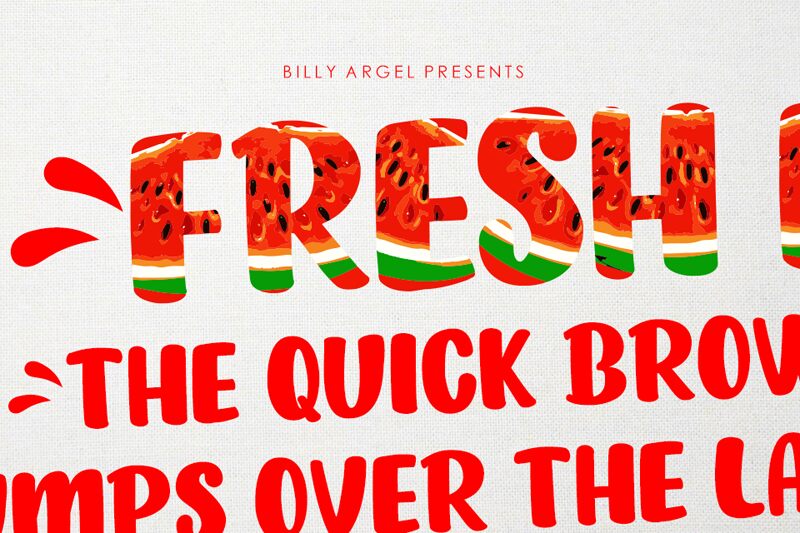
Looking for a font that's as juicy and vibrant as your creative projects? Look no further than FRESH FRUIT, the extra-bold display typeface from designer Billy Argel. With its bold, chunky lettering and playful curves, this font is perfect for adding a pop of color and energy to everything from food packaging to advertising campaigns. Whether you're designing a new smoothie line or creating graphics for a summer festival, FRESH FRUIT is the perfect choice to make your message stand out. So go ahead, take a bite out of design with FRESH FRUIT.
SVG color font.
FRESH FRUIT PERSONAL USE